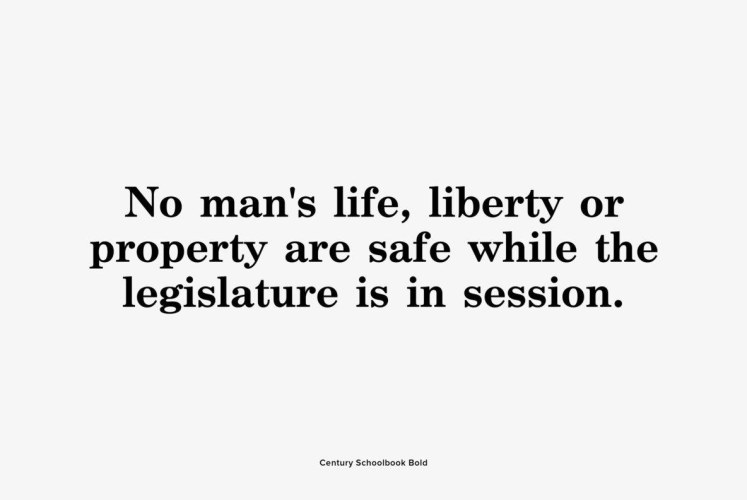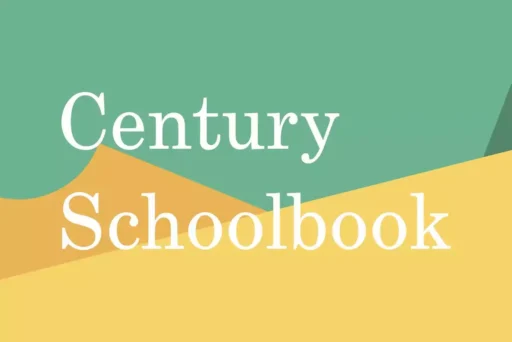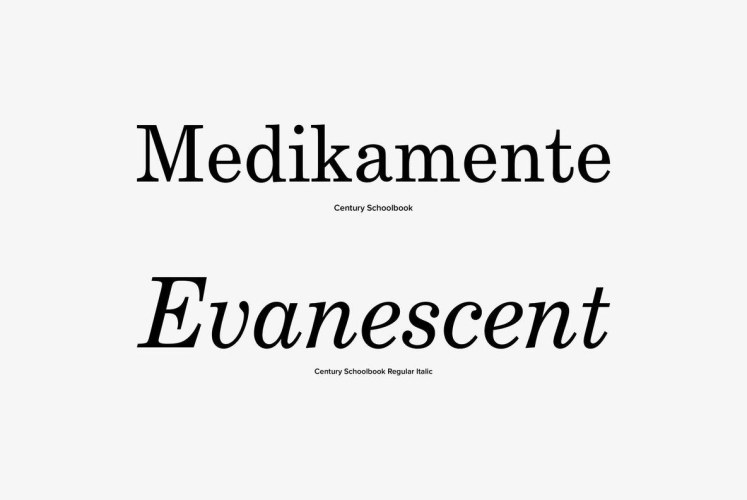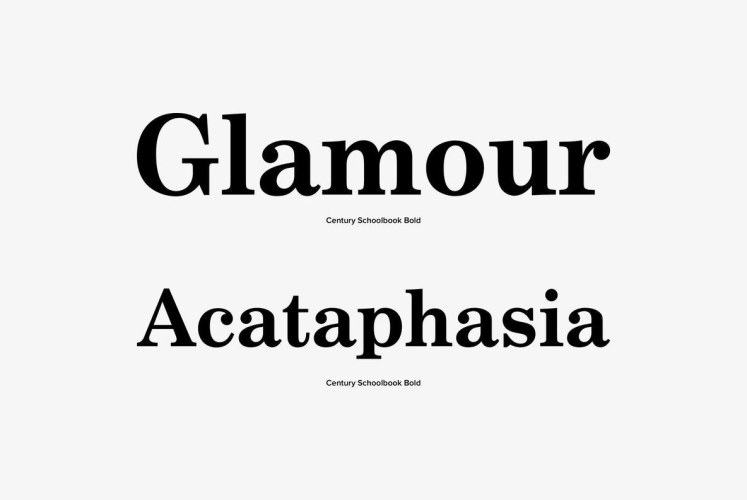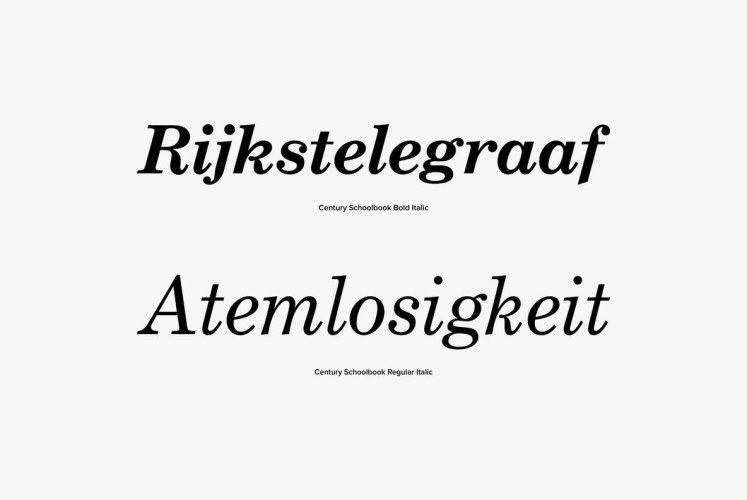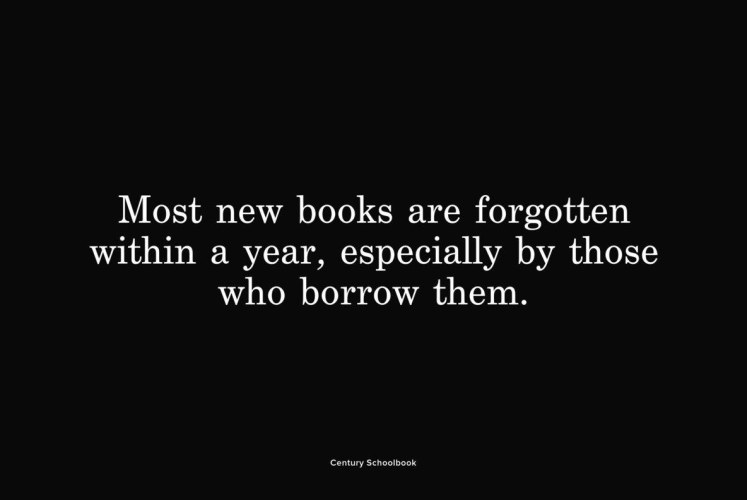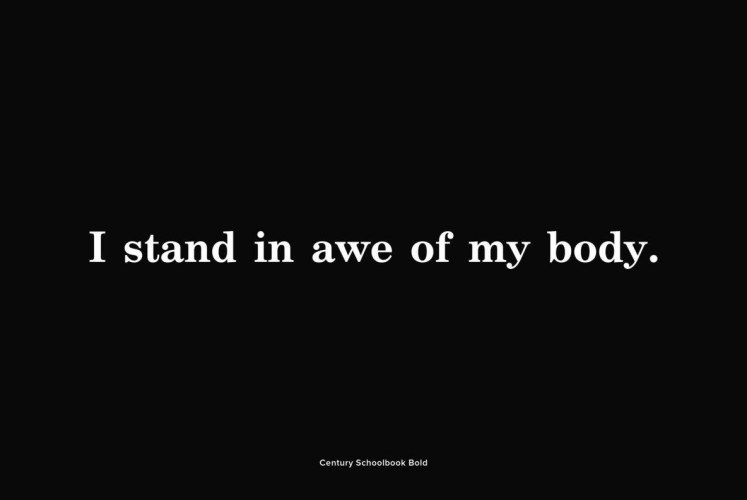
Century Schoolbook Font
Century Schoolbook, a classic serif font that appeared in the 1920s, is an ATF (American Type Founders) type invented by Morris Fuller Benton in 1919. Benton invented it…
Century Schoolbook, a classic serif font that appeared in the 1920s, is an ATF (American Type Founders) type invented by Morris Fuller Benton in 1919. Benton invented it and used it mainly to produce textbooks and educational material. On the one hand, its classic design and very acceptable readability are its advantages in offering many more applications beyond educational applications.
The American Type Founders (ATF) created the Century Schoolbook typeface for use in education and publishing. At this time, Benton, a noted designer in his early days, introduced several popular typefaces that may have inspired him to design a font that would be not merely outstanding but appealing to the eye.
The symbolic architectonics of serif letters, minimal variations in stroke thickness, and gentle curves ensure the fonts’ classical and featured look. The x-height, ascenders, and descenders will influence the font’s temperament, constituting its peculiarity. Century Schoolbook somehow manages to keep its image presentable. Writers, editors and publishing houses usually prefer serif fonts with certain elegant features.
Century Schoolbook’s specific serif feature and stroke make it a timeless font. The letterform’s subtly curved serifs, which discreetly end the projections, thus radiate tranquillity and aesthetic. This achieves the primary design goal—the evenness of the running and zigzag motives, making it stand out visually.
The font’s x-height is also admirable since it can be used for every letter size while maintaining readability and legibility. The proportion of the x’s height in the lowercase letters is harmonious; thus, this correctness provides consistency in the whole alphabet.
Because of its figure, Century Schoolbook stands out as a well-read, easily understandable font. Verily, serif fonts with certain elegant features are usually preferred by writers, editors and publishing houses. It offers a wide range of design options that users can combine with other fonts in addition to its humanistic portraits and balanced ratios.
Century Schoolbook is so multifaceted that its digital and physical products use it. However, creating the greatest legible and consistent typography experience in the professional field involves taking care of platform-specific rendering and anti-aliasing recommendations.
Text displayed on screens of different resolutions and devices impacts the legibility and perception of Century Schoolbook. Font developers should mind at least hinting, which is a technology to re-shape the font outlines, making the output crisp and clear, especially the smaller sizes. Moreover, anti-aliasing methods can boost readability on digital displays by rounding-off the sharp corners of the letter configurations.
In the print medium, factors like paper quality, ink, and printing method affect Century Schoolbook’s appearance. Reproducing continuous ink coverage, an appropriate font size, and ideal line spacing is crucial to maintaining traditional font elegance and readability on printed materials, including books, magazines, and advertising materials.
By resolving these technical matters and defining the specific way of use in electronic and print media, the designer can achieve a high-quality font representation and ensure visual comfort and convenience for the user.
Century Schoolbook is a serif typeface manufactured by Morris Fuller Benton in 1917. It is a classic font most used in designing print.
Employing Century Schoolbook typeface, you may do the following: use it in larger sizes for titles and headlines, pair it with a sans serif font for contrast, and zoom in and out the tracking and kerning for better readability.
Century Schoolbook typeface is a favourite in the setting of books, printed magazines and newspapers. Branding and advertising materials often incorporate its use.
There are a few fonts similar to Century Schoolbook, such as Garamond, Baskerville, or Times New Roman, as some alternates.
Where Century Schoolbook Font works best
Century Schoolbook Font gives long-form text a classic, trustworthy rhythm — ideal for magazine spreads, annual reports and book interiors.
Pair Century Schoolbook Font with generous letter-spacing for wordmarks in fashion, hospitality, wine and jewellery branding.
What is Century Schoolbook Font good for?